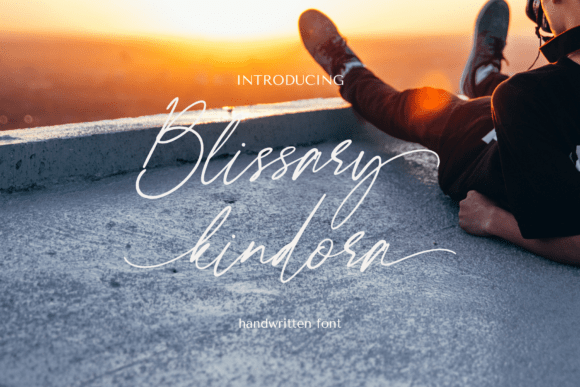
Introduction to Blissary Kindora Font
Blissary Kindora typeface is a romantic and flowing script font with elegant swashes and modern calligraphy charm.
Its smooth, handwritten style is perfect for wedding invitations, branding, social media, and high-end stationery With a graceful balance of sophistication and whimsy, Blissary Kindora adds a personal, luxurious touch to any creative project.